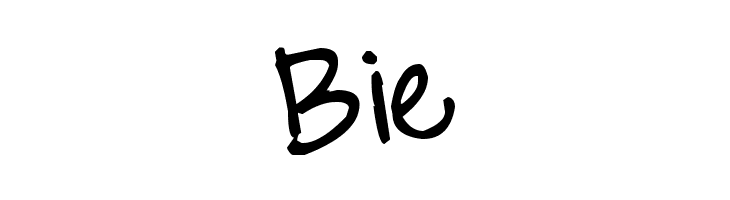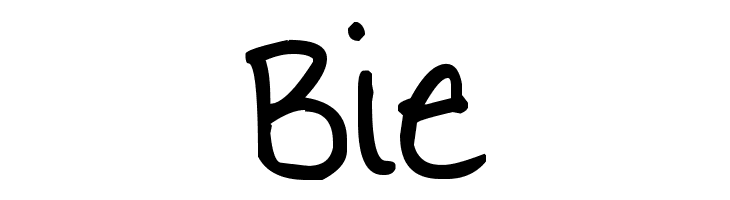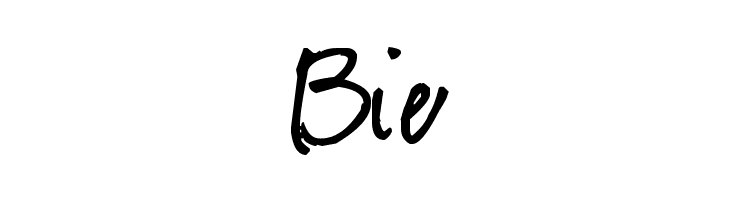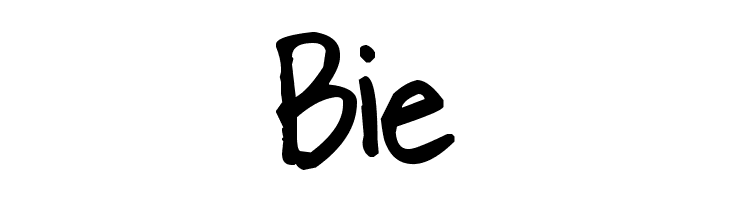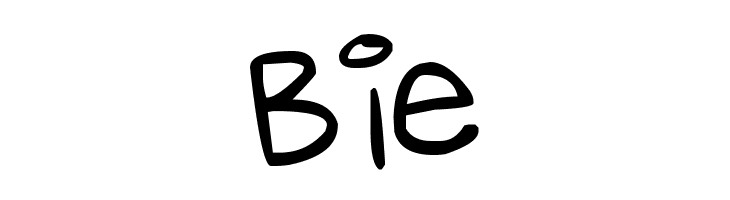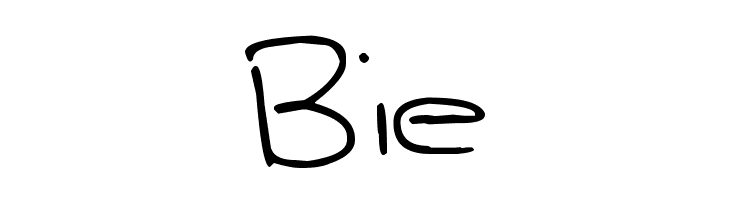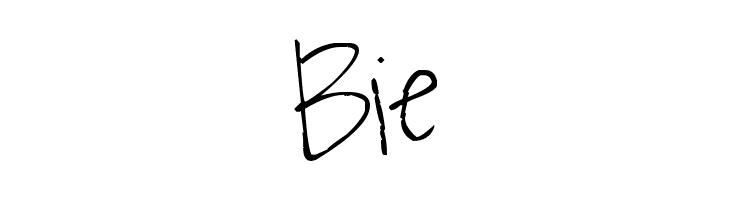
• Pea Amy
A playful, casual handwritten font with uneven strokes and a friendly vibe.
• Pea Cara
A playful, informal handwritten font with dynamic strokes.
• Pea Tammy
• Pea Bhea Script
A playful, handwritten script font with smooth, flowing curves.
• Pea Hillary
A playful, handwritten font with bold strokes and a casual style.
• Pea Noa
• Pea Joanike Handschrift
A playful, casual handwritten font with fluid, slightly irregular strokes.
• Pea Kiley
A playful, hand-drawn font with uneven strokes and whimsical charm.
• Claire Hand Light
A casual, handwritten font with a friendly and approachable style.
• NightwatcherBB-Italic
A dynamic, italicized handwritten font with smooth, fluid strokes.